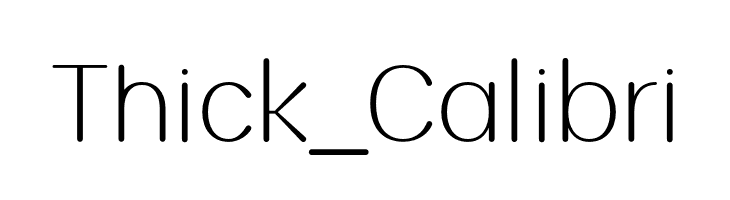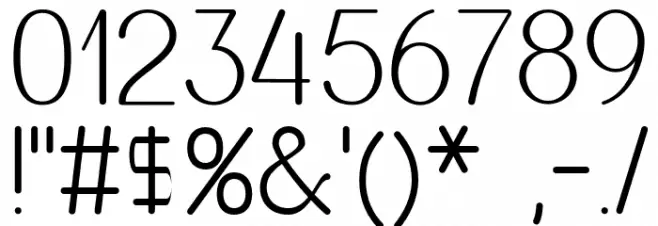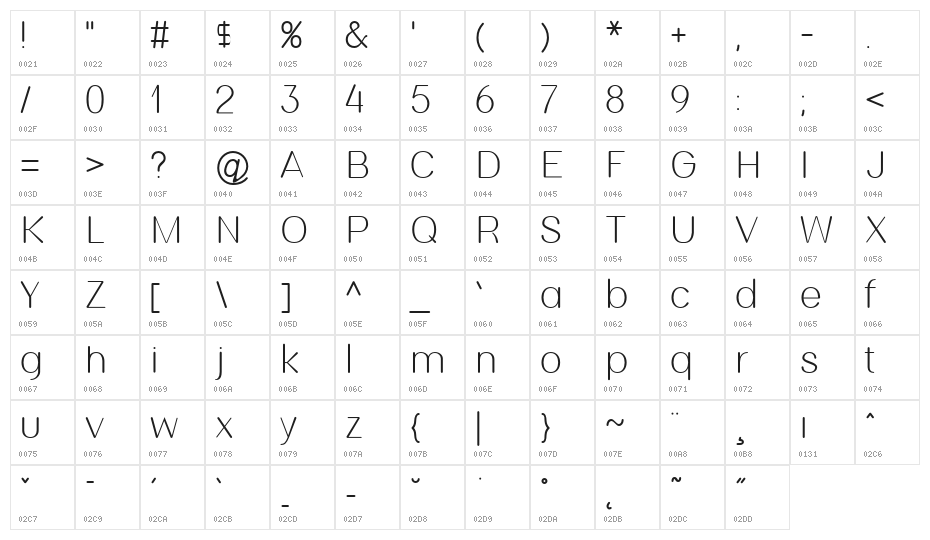
Thick_Calibri Font
Thick_Calibri Description
This font features a clean and modern sans-serif design with uniform stroke widths, giving it a sleek and professional appearance. The characters are well-proportioned, with a slightly rounded finish that adds a touch of softness to the overall look. The uppercase and lowercase letters maintain a consistent style, making it highly legible and versatile for various applications. The numerals are clear and distinct, ensuring readability in both digital and print formats. Special characters are included, offering a comprehensive set for diverse uses.